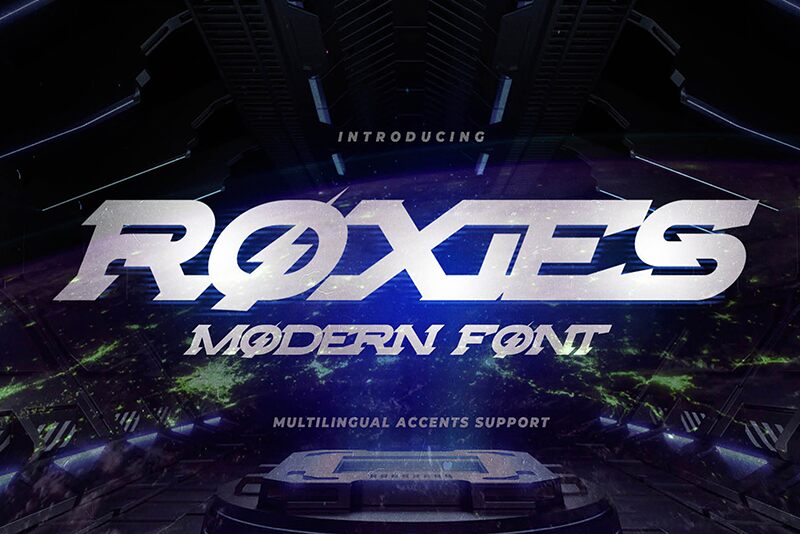
Roxies
Roxies by Gassstype is a display font that encapsulates the essence of modern techno style with its semi-bold weight, delivering a visually striking and futuristic aesthetic. The sleek contours and sharp angles exude a sense of innovation and precision, making it an ideal choice for projects that require a touch of cutting-edge flair. With its bold character and clean lines, Roxies offers both readability and character, ensuring that your creative endeavors will grab attention while maintaining clarity.
Whether for branding, event promotions, or digital media, this font's distinctive appearance is sure to elevate any design with its contemporary verve.